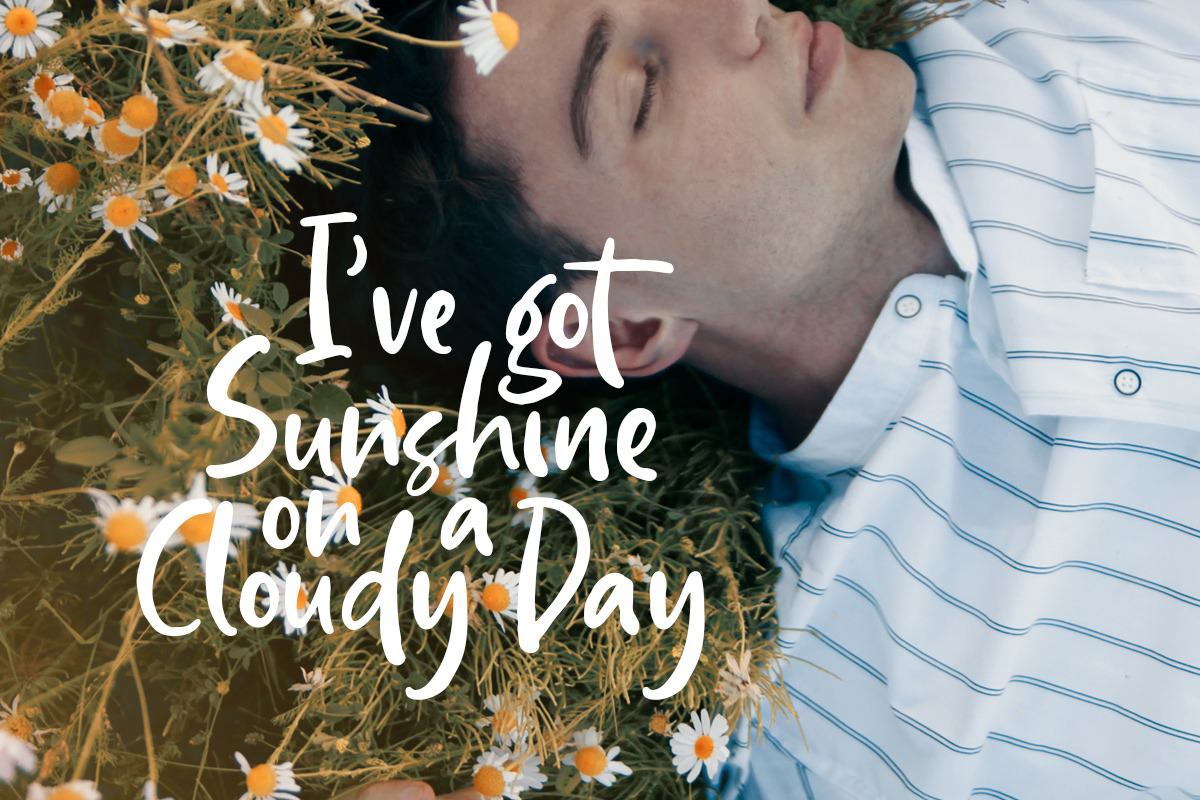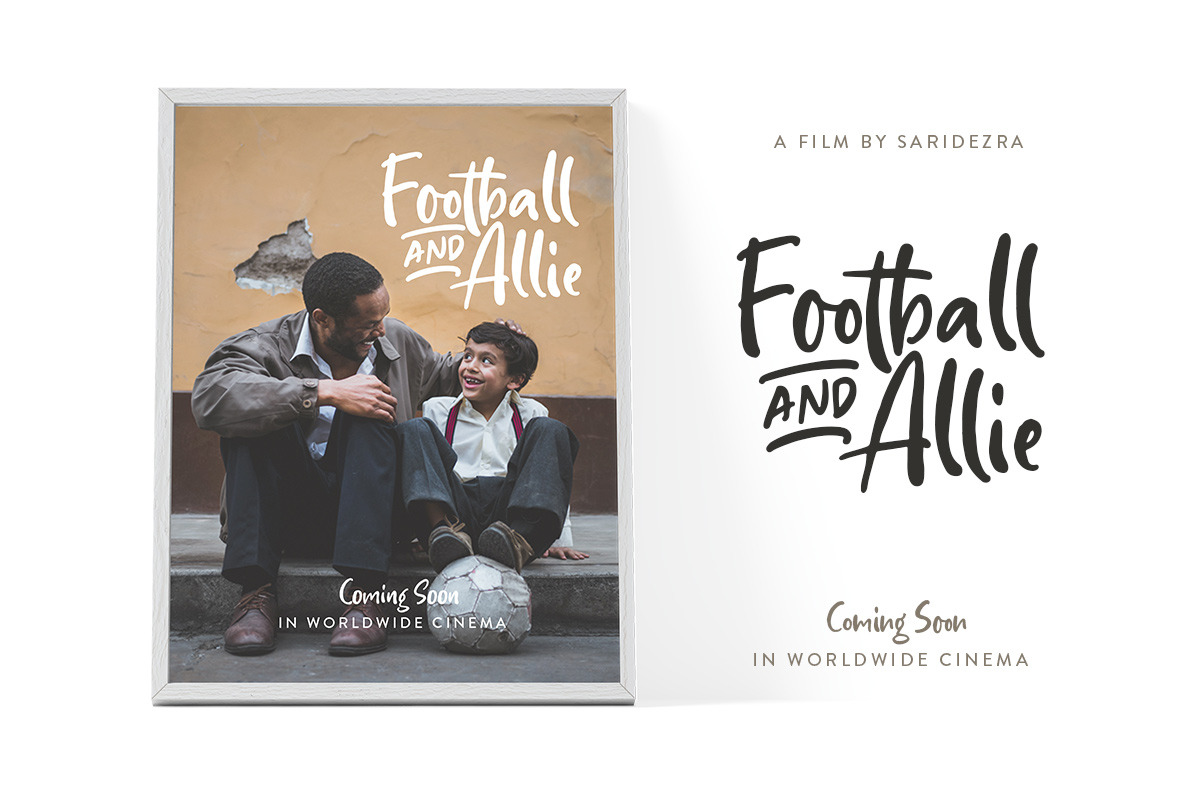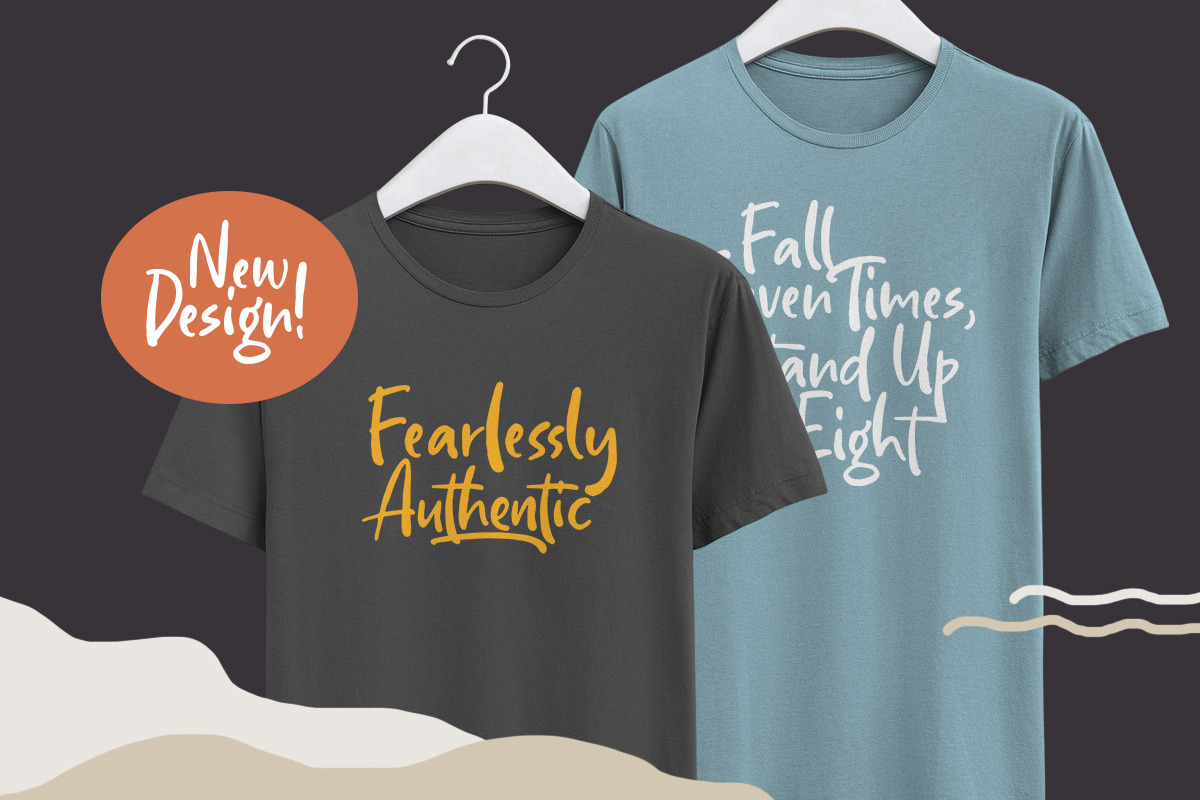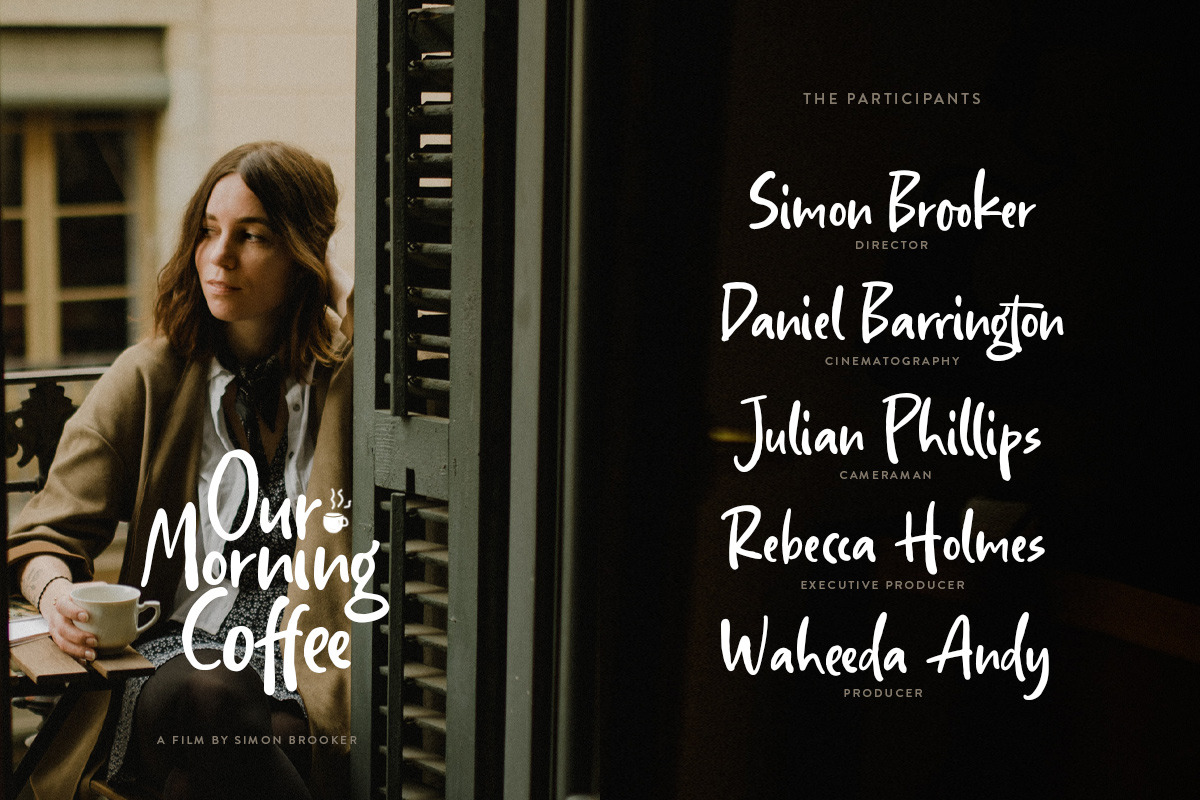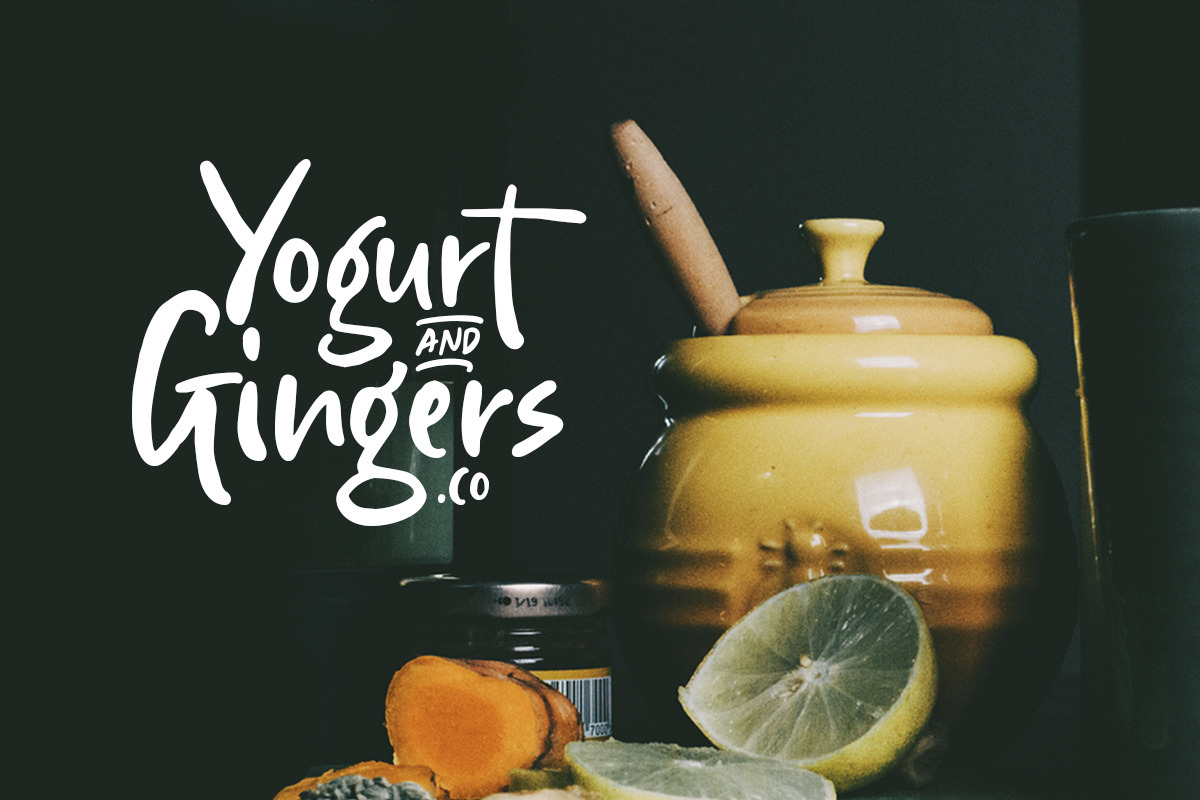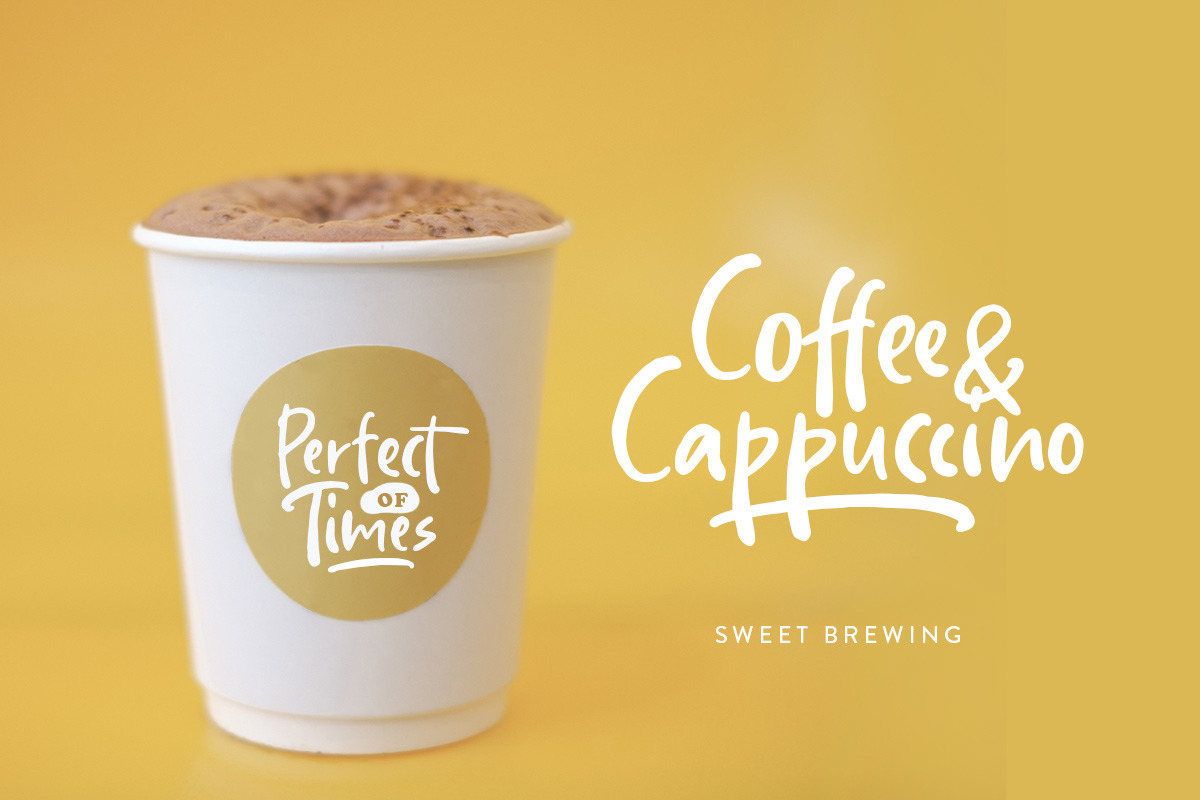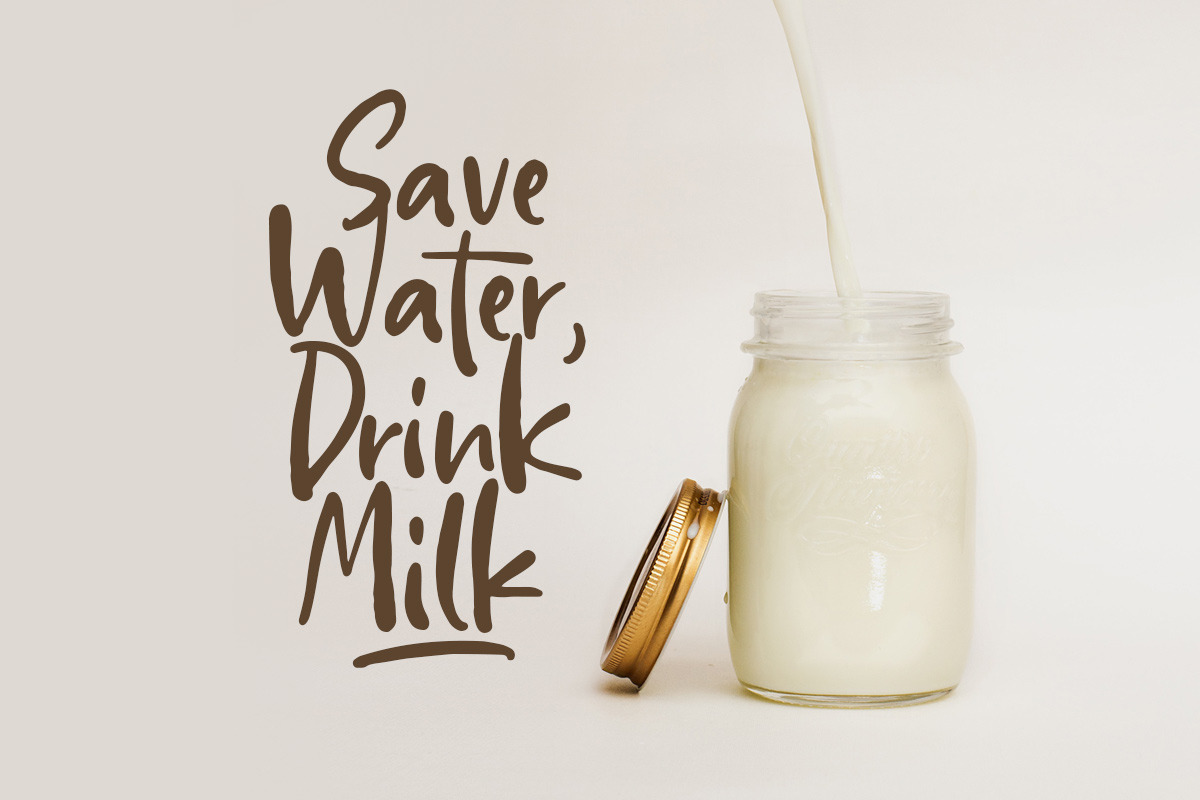
Hopkins Angela - Handwritten Font
Say hi to Hopkins and Angela, a casual handwritten font that will convey your messages with personal touch. It comes with underlines which you can access using the opentype feature.
This font perfectly made to be applied especially in logo, and the other various formal forms such as invitations, labels, logos, magazines, books, greeting / wedding cards, packaging, fashion, make up, stationery, novels, labels or any type of advertising purpose.
- It comes with underlines which you can access using the opentype feature.